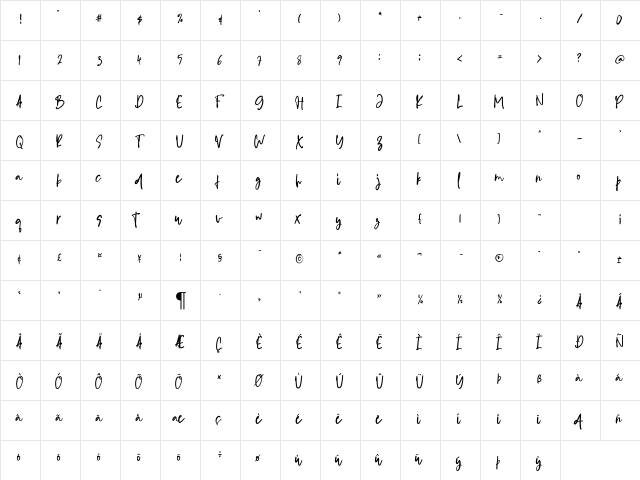
Ideal Type Regular
| Designer | Afridah Ciputra |
Design Context for Ideal Type Typeface
Ideal Type is a composed and adaptable typeface that performs quietly and consistently across a wide range of design contexts.